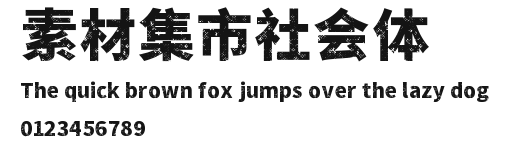
素材集市社会体 Preview
• Font Name: 素材集市社会体
• Designer: 胡庆胜、黄金峰、慕容乔楚、刘峥、王雅楠、舒世栋、杨岳伟、闵峰岗、宣景然、陈坤炜
About 素材集市社会体.otf
素材集市社会体.otf is a modern, elegant sans-serif font designed for ultimate readability and visual harmony. Perfect for branding, headlines, web design, and print materials.